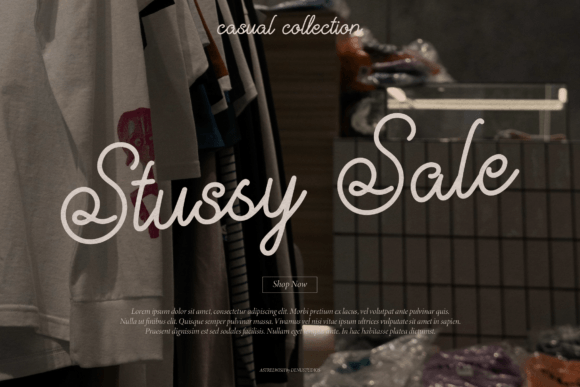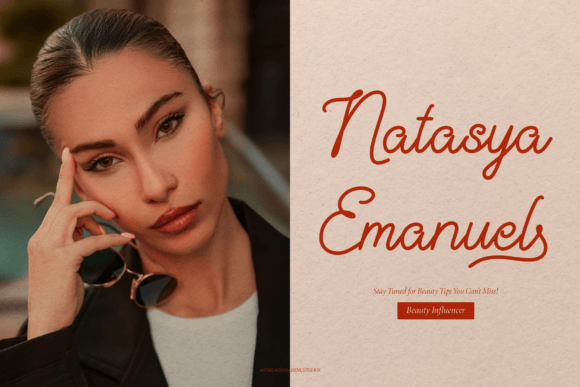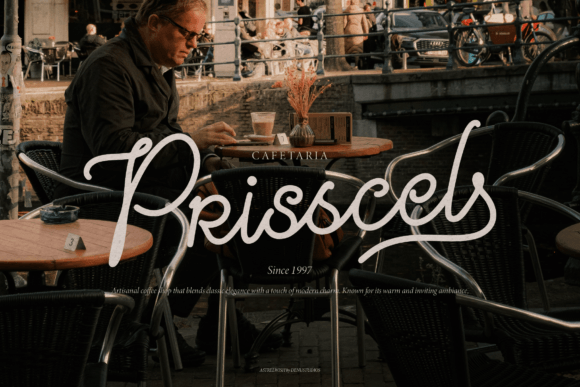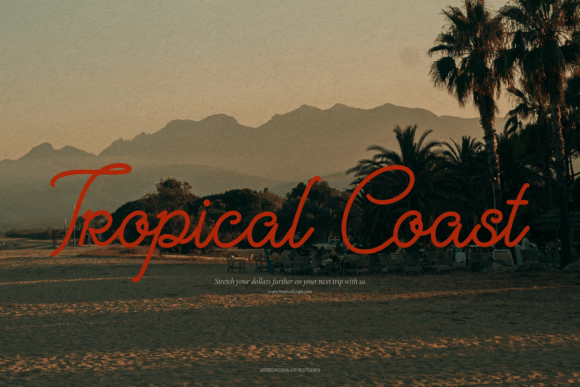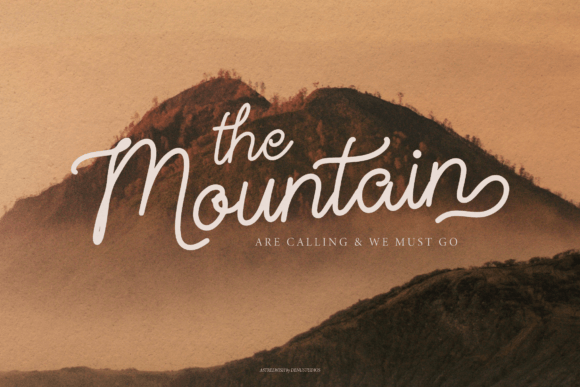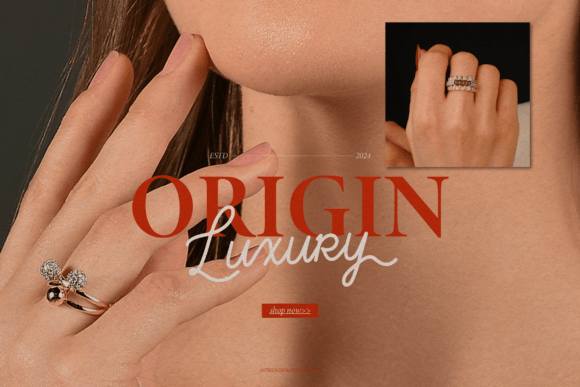
Astrelwish Font: Elevate Your Designs with Elegance and Friendliness
In the world of typography, fonts play a crucial role in conveying the tone and personality of a design. For designers and crafters seeking a stylish and versatile font, Astrelwish is an excellent choice. This monoline script font boasts smooth, flowing lines that exude both elegance and friendliness, making it perfect for a wide range of design applications.
What is Astrelwish Font?
Astrelwish is a modern, monoline script font characterized by its single-line style, which gives it a clean and contemporary look. The font’s smooth, flowing lines create a sense of fluidity, making it ideal for designs that require a touch of sophistication and approachability. Whether you’re working on a logo, invitation, or handwritten-style design, Astrelwish is sure to impress.
Key Features of Astrelwish Font
• Monoline Script Font: Astrelwish features a single-line style that gives it a modern and sleek appearance.
• Smooth, Flowing Lines: The font’s smooth lines create a sense of fluidity, making it perfect for designs that require elegance and friendliness.
• Elegant and Friendly: Astrelwish strikes the perfect balance between sophistication and approachability, making it suitable for a wide range of design applications.
• Clean and Modern Look: The font’s clean and modern design makes it perfect for logos, invitations, and handwritten-style designs.
Design Applications for Astrelwish Font
Astrelwish is a versatile font that can be used in various design applications, including:
• Logos: Create a lasting impression with Astrelwish’s elegant and modern design, perfect for logos that require a touch of sophistication.
• Invitations: Add a personal touch to your invitations with Astrelwish’s friendly and approachable design.
• Handwritten-Style Designs: Create beautiful, handwritten-style designs with Astrelwish’s smooth, flowing lines.
• Branding: Establish a strong brand identity with Astrelwish’s unique and recognizable design.
• Packaging: Elevate your packaging designs with Astrelwish’s modern and elegant design.
Why Choose Astrelwish Font?
With so many fonts available, why choose Astrelwish? Here are a few reasons why designers and crafters love Astrelwish:
• Unique Design: Astrelwish’s monoline script design sets it apart from other fonts, making it a great choice for designers seeking a unique look.
• Versatility: Astrelwish can be used in various design applications, from logos to invitations and handwritten-style designs.
• Ease of Use: Astrelwish is easy to read and works well in both digital and print formats.
• High-Quality Design: Astrelwish is designed with high-quality craftsmanship, ensuring a professional finish in every design.
Tips for Using Astrelwish Font
To get the most out of Astrelwish, here are some tips for using the font:
• Pair with Other Fonts: Combine Astrelwish with other fonts to create a unique and visually appealing design.
• Experiment with Colors: Try out different colors to find the perfect match for your design.
• Play with Sizes: Experiment with different font sizes to create visual hierarchy and emphasis.
• Keep it Simple: Don’t overcomplicate your design – Astrelwish’s simplicity is part of its charm.
Astrelwish font is a stylish and versatile monoline script font that offers a perfect blend of elegance and friendliness. With its smooth, flowing lines and clean, modern design, Astrelwish is ideal for a wide range of design applications, from logos to invitations and handwritten-style designs. Whether you’re a designer or crafter, Astrelwish is an excellent choice for anyone seeking a high-quality font that will elevate their designs.